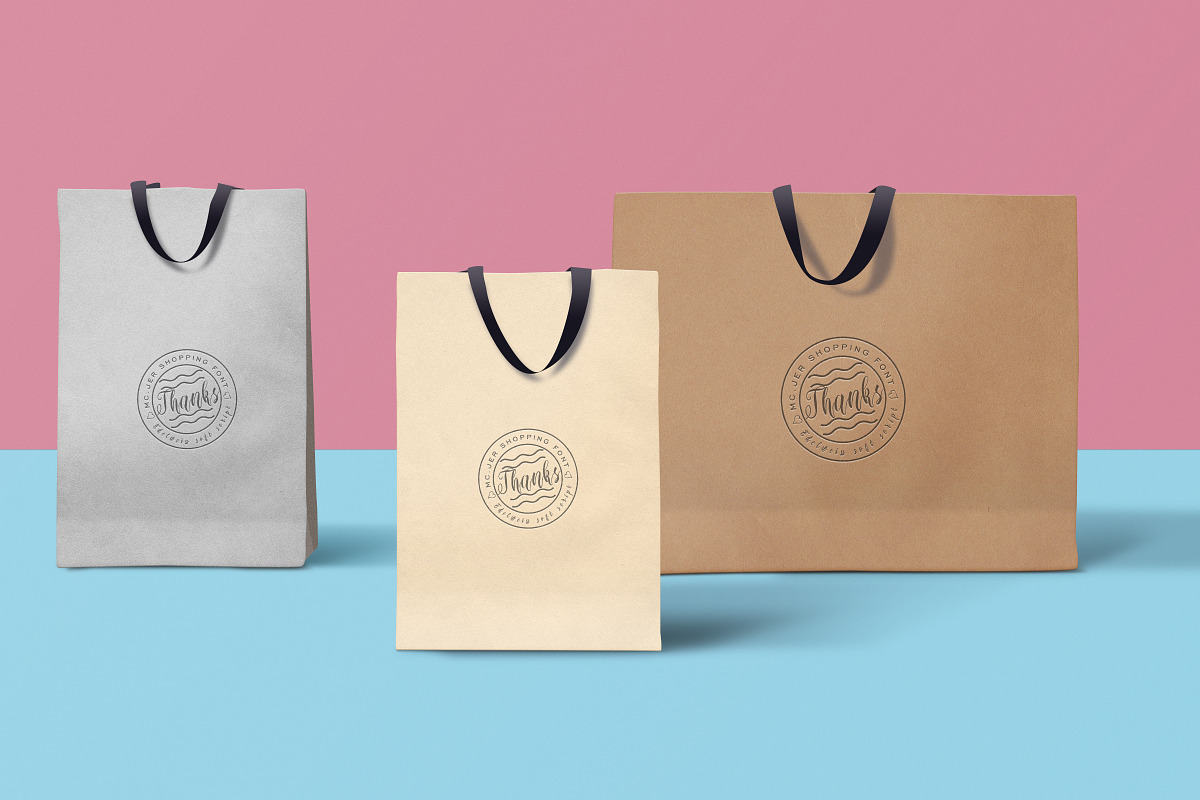
Edelweiss Soft Script
Edelweiss Soft Script Inspiration from name of Flower Anaphalis Javanica and Leontopodium alpinum. Edelweiss is a flowering plant species endemic to Indonesia. Anaphalis are found mostly in mountainous regions of Java, southern Sumatra, southern Sulawesi and Lombok.Leontopodium are found in mountainous Austria.
Edelweiss Soft Script is handmade created by Brushpen.
Edelweiss Soft Script is Modern Script have 610 Glyph with Uppercase, Lowercase, Open type Ligature and Alternate Ligature, Numeral, Punctuation, Swashes, Catchword and Doodles. Edelweiss has 3 Set of Lowercase Alternate Style and Unique Lowercase to bring your design awesome.